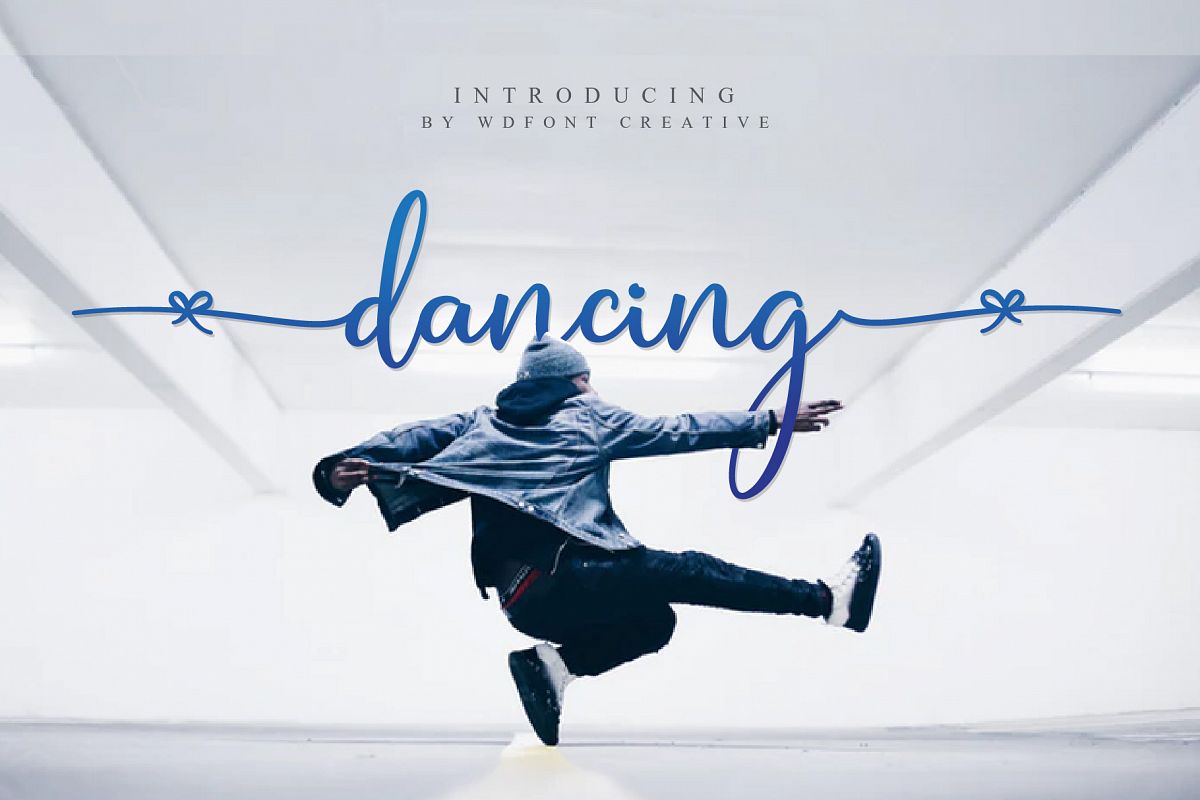
Dancing | New Calligraphy Fonts
Dancing
Dancing a new fresh & modern script with a handmade calligraphy style, decorative characters and a dancing baseline! So beautiful on invitation like greeting cards, branding materials, business cards, quotes, posters, and more!!